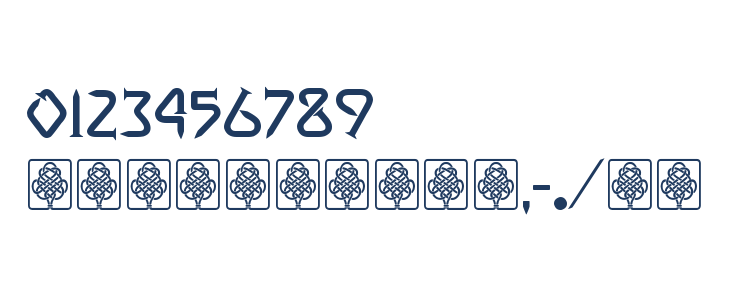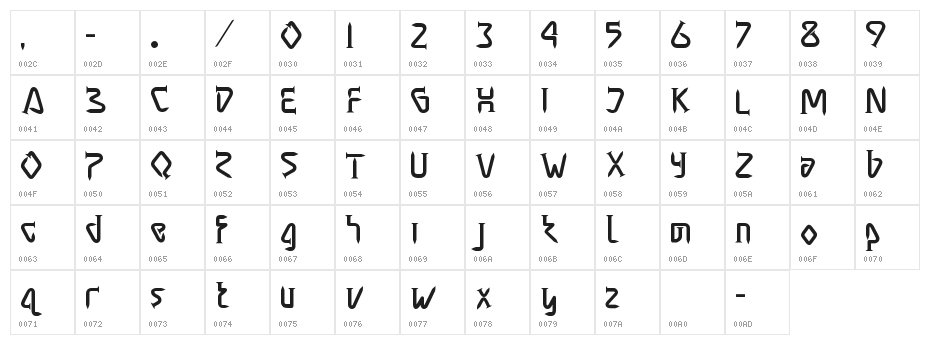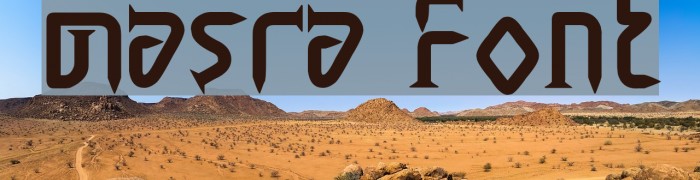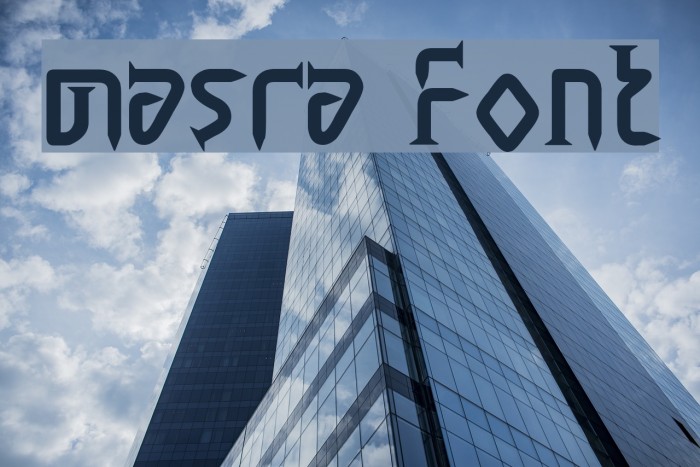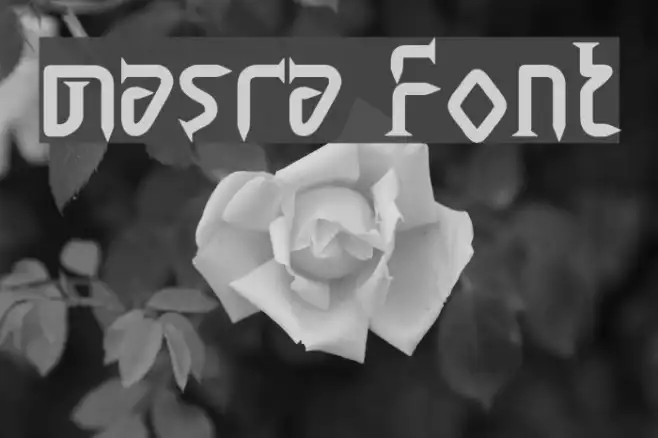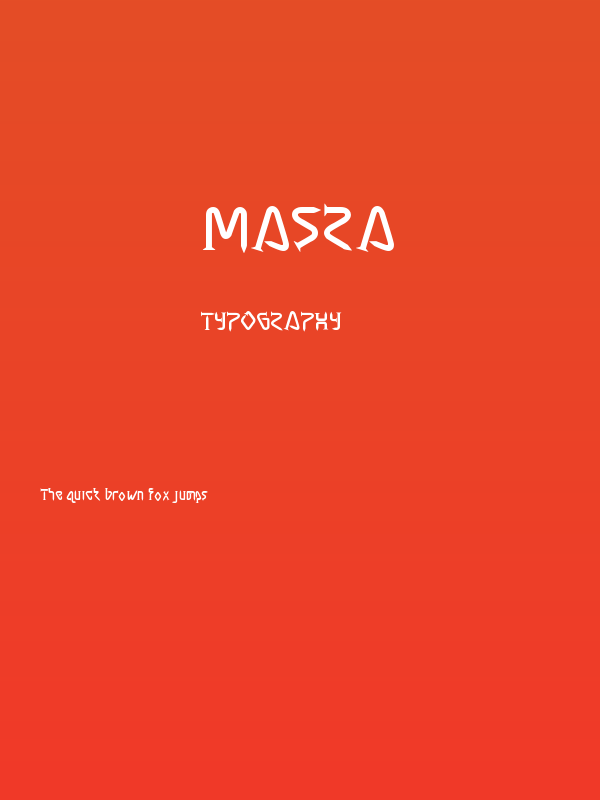
masra Font
masra Description
This font features a bold and dynamic design with sharp, angular edges and a futuristic aesthetic. The characters are uniquely stylized, with a consistent geometric form that gives them a distinct, cutting-edge appearance. The uppercase and lowercase letters maintain a cohesive look, while the numerals and special characters complement the overall style. The font's design is both modern and slightly aggressive, making it suitable for projects that require a strong visual impact.
| Overall Style | Futuristic, Modern |
| Proposed Projects | Ideal for sci-fi themed projects, video game titles, tech branding, and modern posters. |